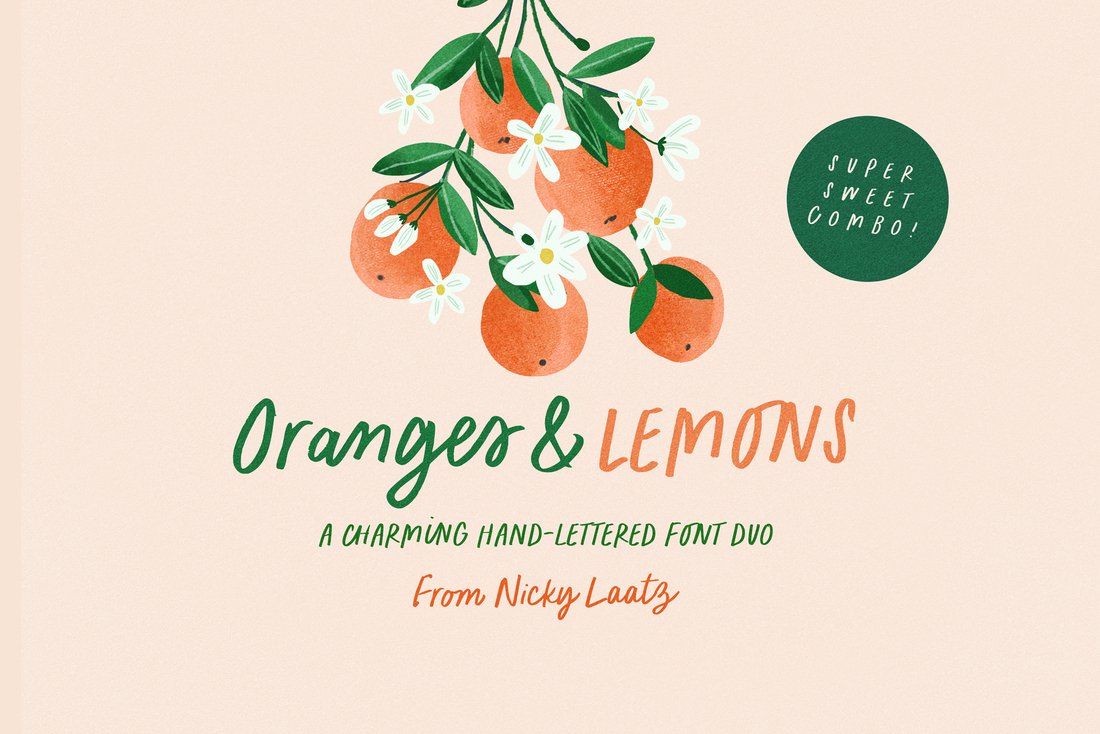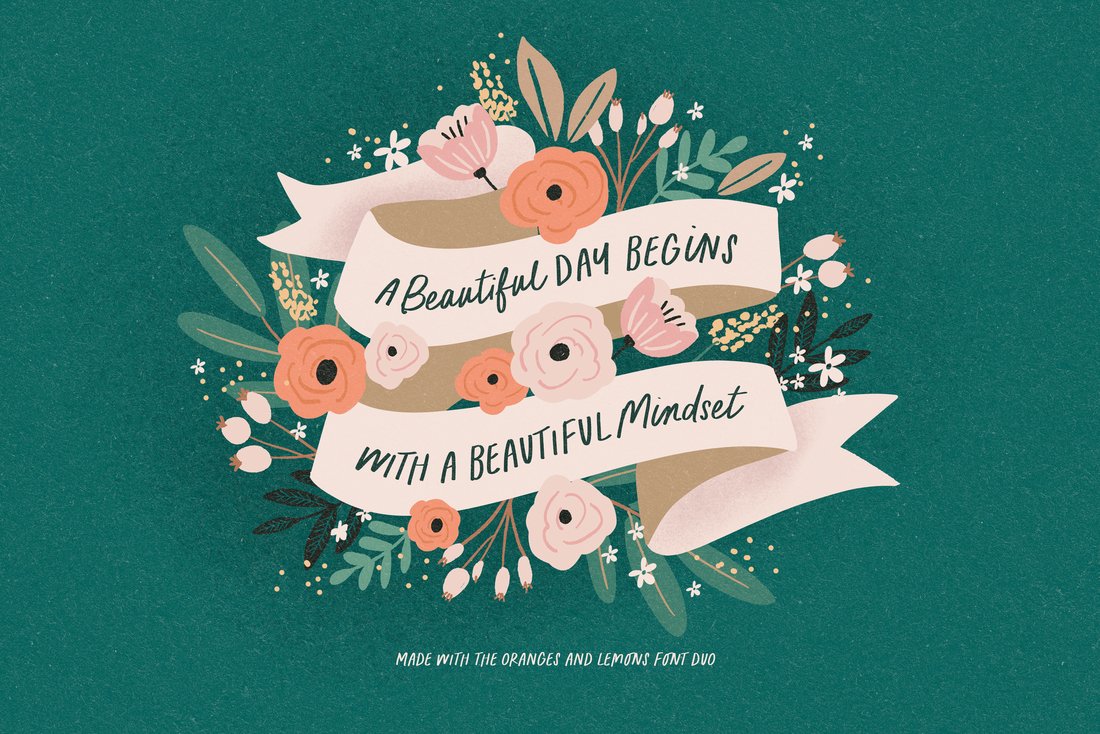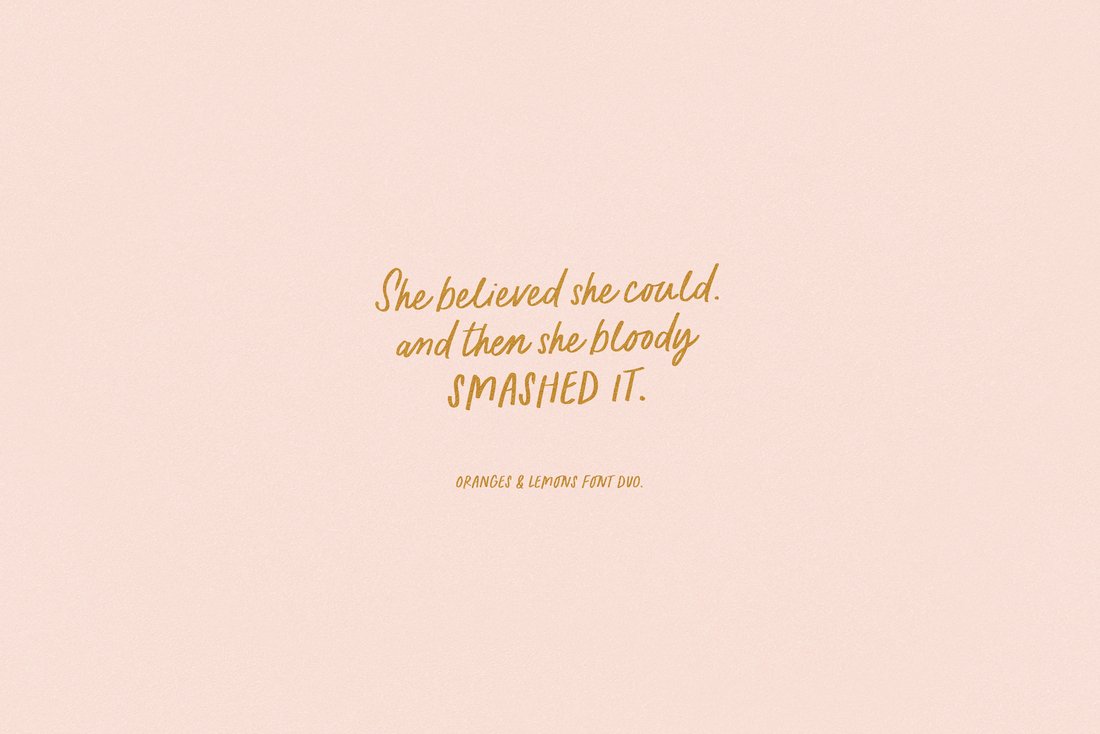
Oranges and Lemons Font Duo
A charming and sweet new hand-lettered font duo. Perfect for casual type in greeting cards, illustrations, quotes, quaint branding, book covers, children's books, packaging and so much more :)
The duo consists of a casual handwriting marker style all-caps font, and a matching Script.